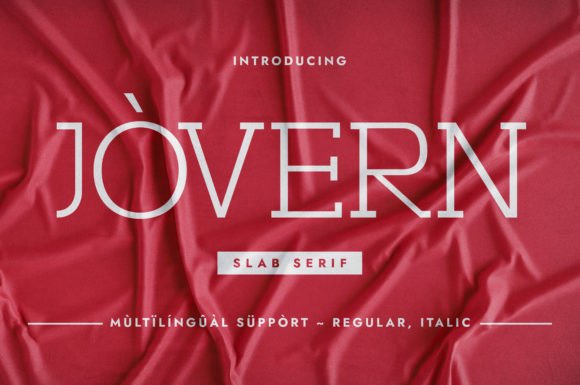
Behold, an odyssey into visual elegance awaits with Jovern Font, the quintessential masterpiece in the world of slab serif typography. Experience the exquisite blend of tradition and innovation meticulously forged to unleash a font of unparalleled beauty and utility.
Immerse yourself in a world of sophistication, where Jovern's stately strokes dance across your designs, bestowing them with an aura of timeless grace. With its refined contours and elegant serifs, it exudes a charm that transcends the boundaries of time, captivating audiences with its captivating presence.
Unleash your creativity and let Jovern weave its magic across a myriad of design domains. Its versatility transcends boundaries, effortlessly adapting to perfume labels, cosmetic packaging, magazine covers, posters, flyers, social media posts, and the fashion world's glamorous allure. Each character, meticulously crafted to perfection, ensures your creations radiate an unmatched level of sophistication.
Witness the transformation of your designs as Jovern's distinctive charm elevates them to new heights of visual splendor. Its allure lies not just in its aesthetics but also in its functionality. Effortlessly legible and visually pleasing, Jovern ensures your message is delivered with impact and clarity, leaving an indelible mark on your audience.
Allow Jovern to become the cornerstone of your design endeavors and unlock a world of limitless creative possibilities. Embrace its timeless beauty and watch as your designs metamorphose into works of art that resonate with viewers on a profound level. Join the ranks of discerning designers who have succumbed to Jovern's allure, propelling their designs to new heights of elegance and distinction.